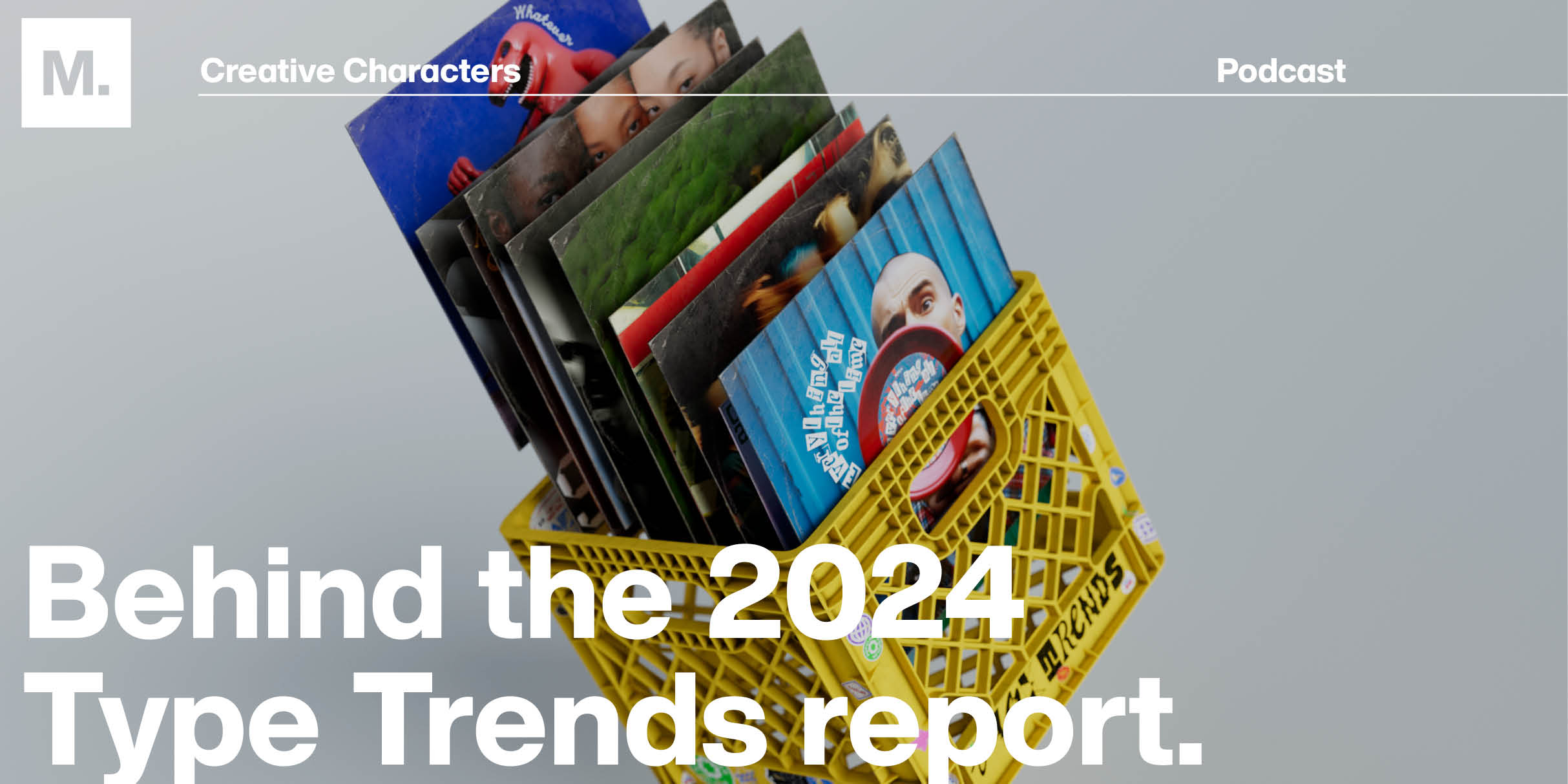
Creative Characters S4 E1: Behind the 2024 Type Trends report with Jordan Bell and Damien Collot.
You’ve probably heard something about it, but just in case you missed it: Our 2024 Type Trends report is finally here! And good news, this week on Creative Characters you can tune in to hear even more about it.
Join Type Designer Jordan Bell and Creative Type Director Damien Collot as they discuss their experiences curating this year’s report–they’ll guide you through the trends that moved them and the projects they admired. Take a plunge into the styles that shaped the typographic landscape this past year, find out more about what sets them apart, but also the feelings that unite them. Who knows, you might fancy something a little bit deformed? Or perhaps you’ll welcome a return to serifs? Maybe you’ll crave a little bit of Everythingallofthetime! Listen up – this is what type is telling us as 2024 begins. Enjoy!